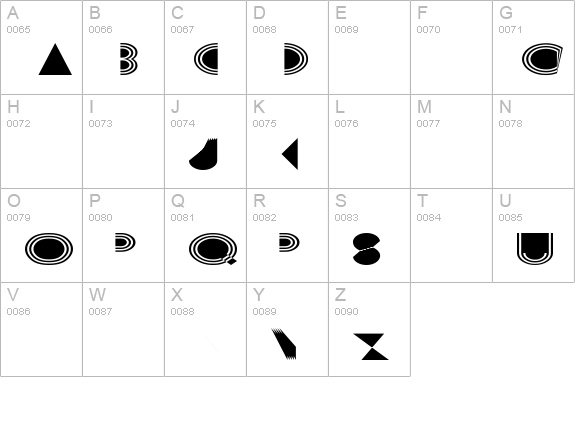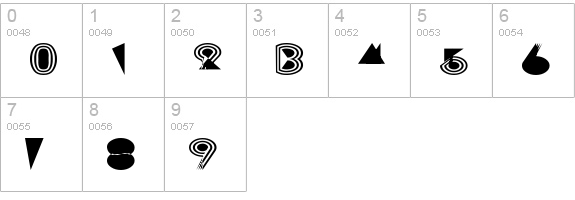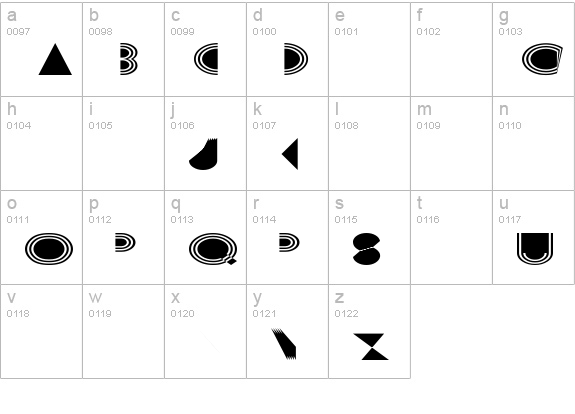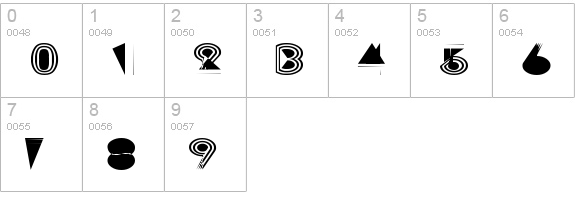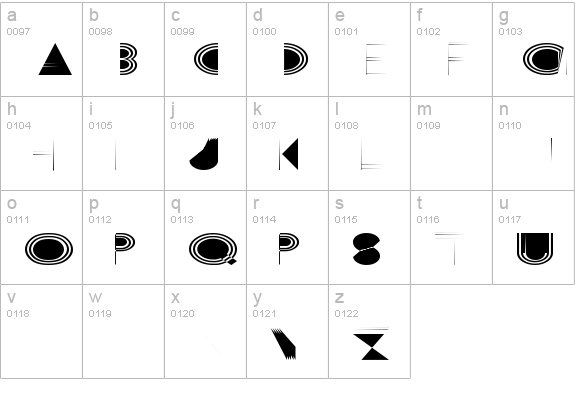
Prisma Ex font is a stunning display typeface that exudes elegance and modernity. Its sleek lines and sharp angles make it perfect for creating eye-catching designs that stand out. This versatile font is perfect for a wide range of projects, from branding to editorial design. With its clean and sophisticated look, Prisma Ex font is sure to elevate any design it is used in. The best part? Prisma Ex font is completely free to download at FontsMarket.com. That's right, you can get your hands on this beautiful typeface without spending a dime. Don't miss out on the opportunity to add Prisma Ex font to your font library and take your designs to the next level. Download it now and see for yourself the magic of Prisma Ex font.